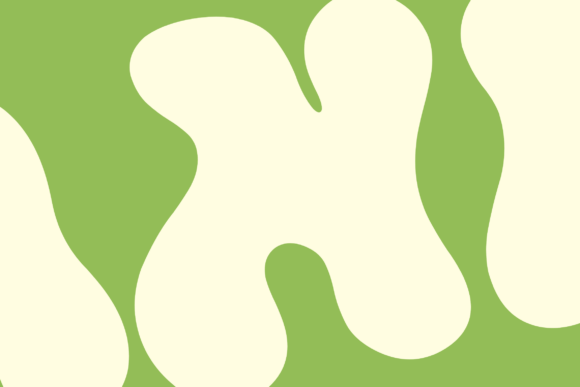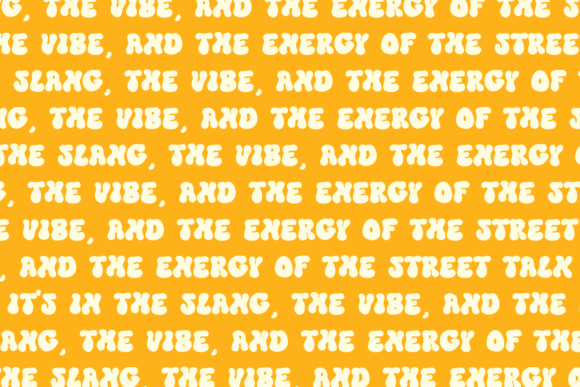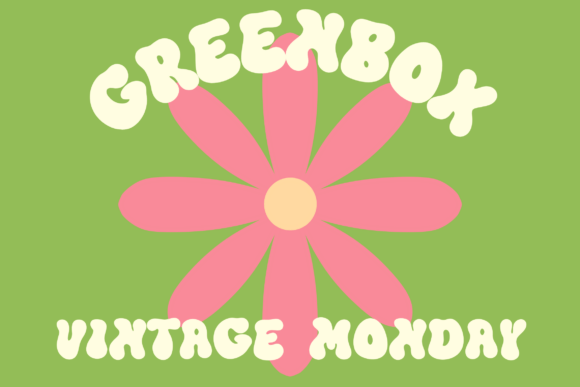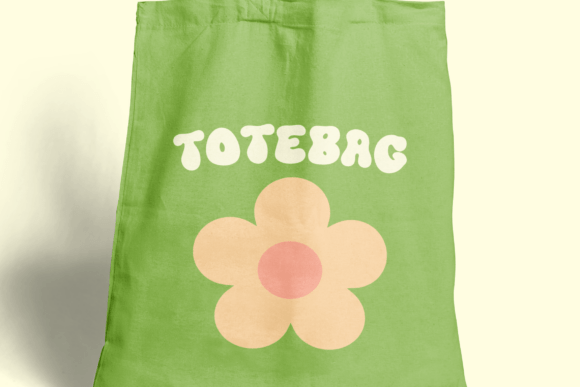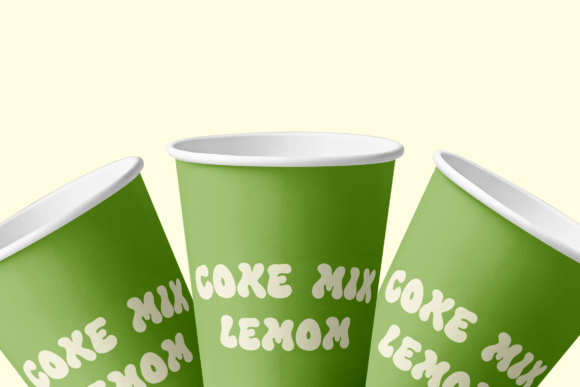
Meet Doughsy, the Bubble Font That’s Sweetening Designs Everywhere
Are you tired of using the same old fonts that seem to blend into the background? Look no further than Doughsy, the playful bubble display font that’s bursting with personality. Designed to evoke the feeling of soft, thick, and cheerful lettering, Doughsy is the perfect addition to any design project that needs a dash of fun and whimsy.
The Inspiration Behind Doughsy
Doughsy’s rounded shapes are reminiscent of sweet dough or marshmallow foam, giving it a unique and eye-catching appearance. Each character is carefully crafted to bring a fun and friendly vibe to your designs, making them instantly more lively and approachable. Whether you’re working on a kids’ branding project, snack packaging, stickers, YouTube thumbnails, birthday designs, playful logos, or colorful social media graphics, Doughsy is the perfect font to help you connect with your audience.
Why Doughsy Sells
So, what sets Doughsy apart from other fonts on the market? Here are just a few reasons why designers and crafters are falling in love with this bubble font:
- Readability: The thick, rounded structure of Doughsy keeps text readable even when paired with bright colors and playful layouts. This makes it perfect for designs that need to grab attention and communicate a message clearly.
- Time-Saving: Because the bubble style already carries personality, you don’t need to spend hours adding heavy effects to your design. This means you can bring your project together faster, without sacrificing style or impact.
- Popularity: Bubble fonts are a popular choice for kids’ products, food brands, and fun digital content. By using Doughsy, you can tap into this trend and create designs that feel fresh and relevant.
Doughsy is a versatile font that’s perfect for a wide range of design projects. Here are just a few ideas to get you started:
- Kids’ Branding: Use Doughsy to create fun and engaging logos, packaging, and marketing materials for kids’ products.
- Snack Packaging: Add a playful touch to snack packaging with Doughsy’s cheerful, bubble-inspired design.
- Stickers and Labels: Create eye-catching stickers and labels with Doughsy’s bold, rounded shapes.
- YouTube Thumbnails: Use Doughsy to create attention-grabbing thumbnails that stand out on YouTube.
- Birthday Designs: Make birthdays more special with custom designs featuring Doughsy’s playful font.
- Social Media Graphics: Add a pop of personality to your social media graphics with Doughsy’s fun and friendly vibe.
Get Ready to Fall in Love with Doughsy
If you’re looking for a font that will add a dash of fun and personality to your designs, look no further than Doughsy. With its playful bubble style, ease of use, and versatility, Doughsy is sure to become a favorite in your design toolkit. So why wait? Give Doughsy a try today and see how it can sweeten your designs!
In conclusion, Doughsy is a unique and engaging font that’s perfect for designers and crafters looking to add a touch of whimsy to their projects. With its bold, rounded shapes and cheerful personality, Doughsy is sure to make your designs stand out. Whether you’re working on a kids’ branding project or a social media graphic, Doughsy is the perfect choice. So go ahead, get creative with Doughsy, and watch your designs come to life!